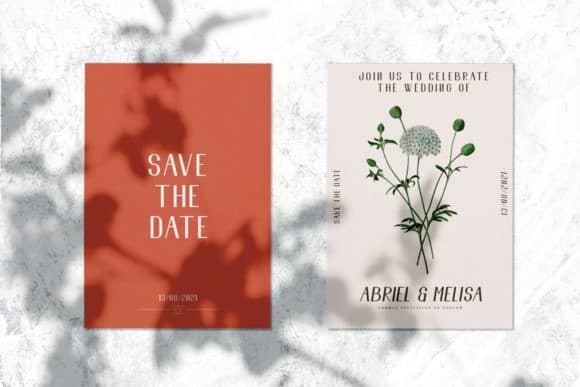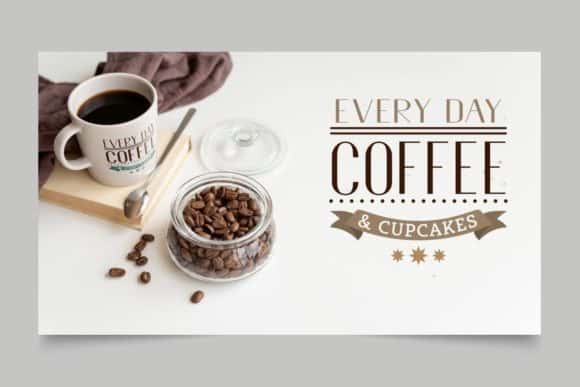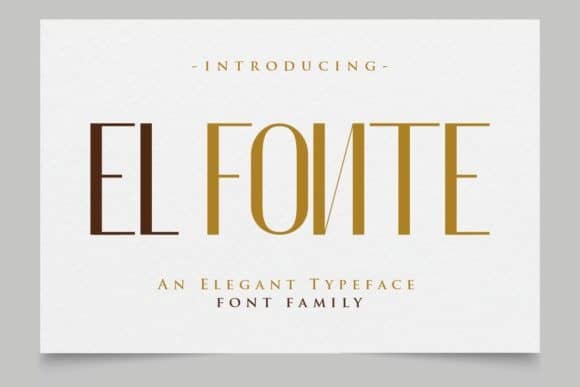
El Fonte Sans Serif Font
El Fonte Sans Serif Font is a font with a retro look but cute impression making this font unique with a consistent thickness, making memories of the 70s era. It’s designed and shared by Gilar Studio. This Typeface is an elegant and distinct sans serif font. Fall in love with its incredibly versatile style and use it to create spectacular designs! This font is perfect for creating logos, invitations, novels, books, magazines, labels, greeting / wedding cards. So what are you waiting for!